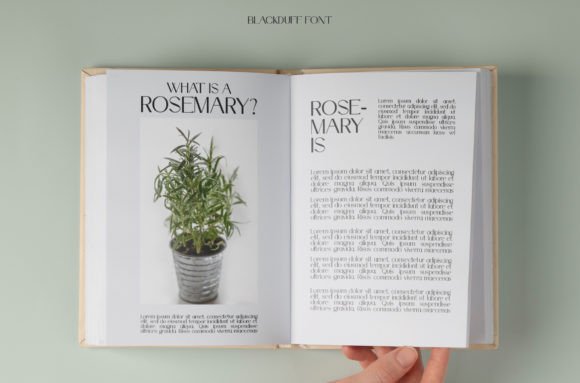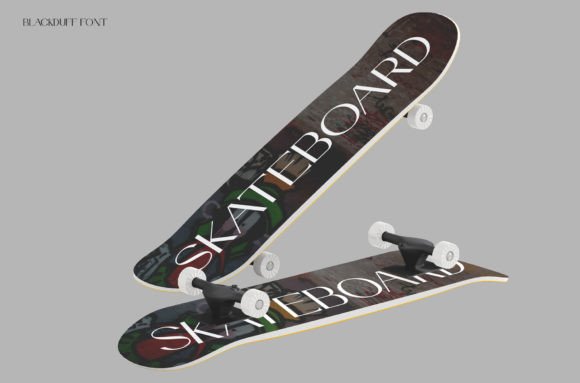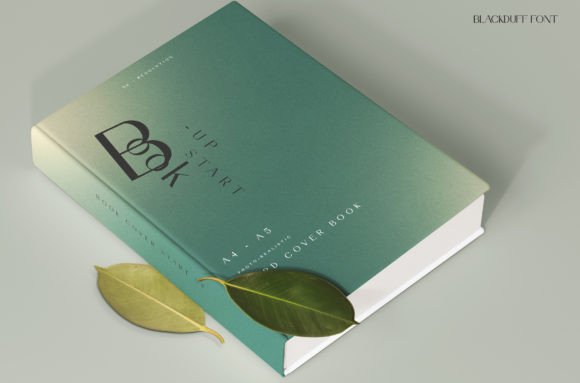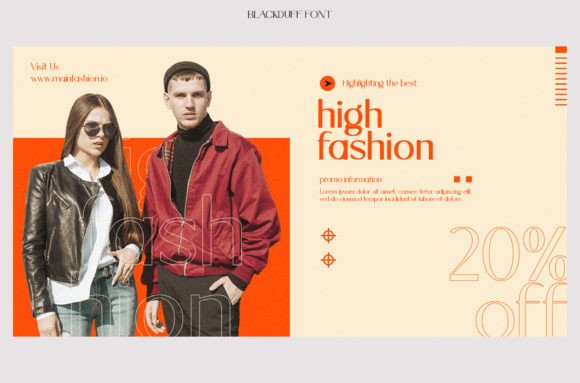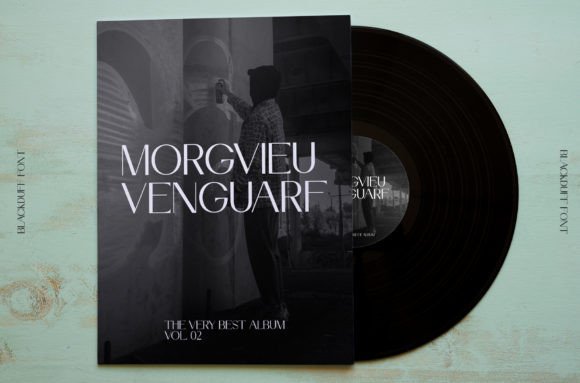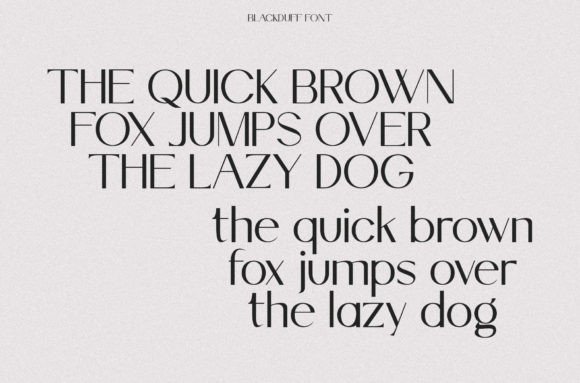
Introduction to Blackduff Font
Blackduff is a sans serif typeface, modern, vintage, and retro.
Blackduff excels in display settings such as headlines, titles, branding projects, Logo design, packaging, magazine headings, advertising, and short or long text .
Key Features of Blackduff Font
Why Choose Blackduff Font?
Blackduff Font offers exceptional quality and versatility, making it a valuable addition to your design toolkit. Whether you’re creating for personal projects or commercial use, Blackduff Font delivers professional results.